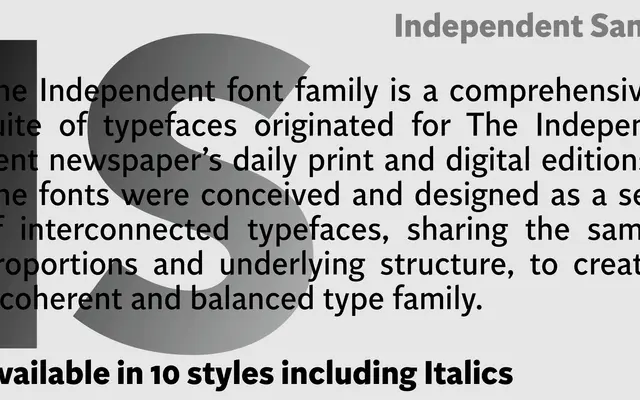
Independent Sans
A2-Type · 2013
A humanist sans designed in 2013 for The Independent newspaper, forming part of a unified type system covering serif, sans, condensed and stencil cuts.
Commissioned for The Independent's daily print and digital editions, Independent Sans shares its proportions and underlying structure with the broader Independent family, which includes a serif, condensed, slab and stencil. Five weights from Light to Black, each with an italic, give it sufficient range for both text and display use. The family received a D&AD Yellow Pencil in 2014 and the Typeface Design prize at the Tokyo TDC awards in 2015.
Designed for newspaper use with attention to legibility at text sizes and at display scale, sharing proportions with a broader serif and condensed family; the mix of optical warmth and functional range places it in the humanist sans tradition.